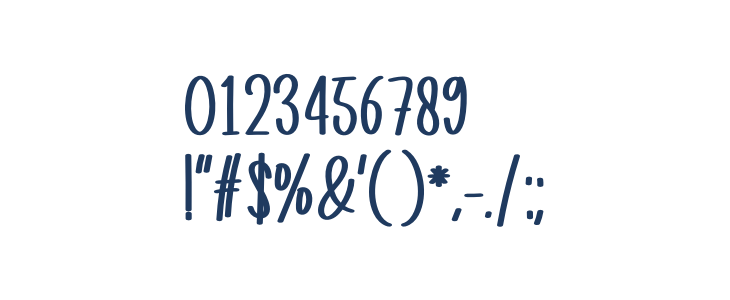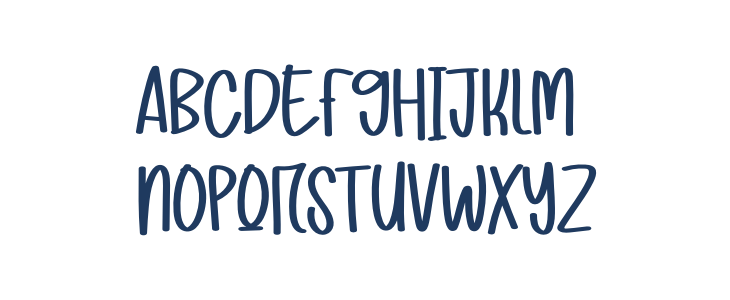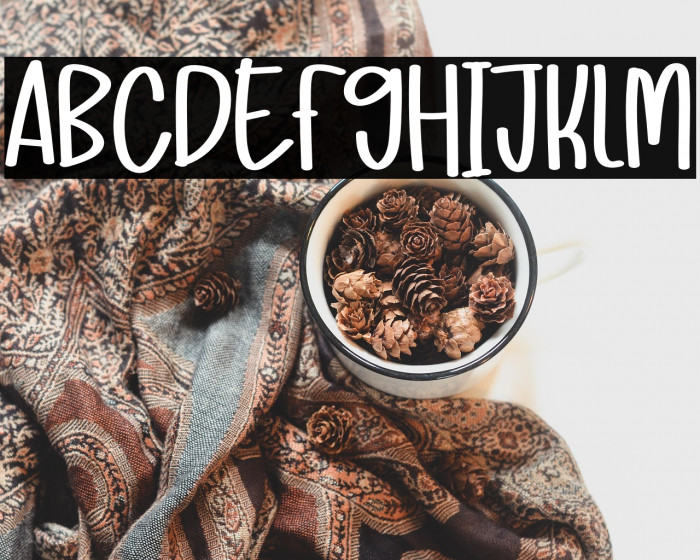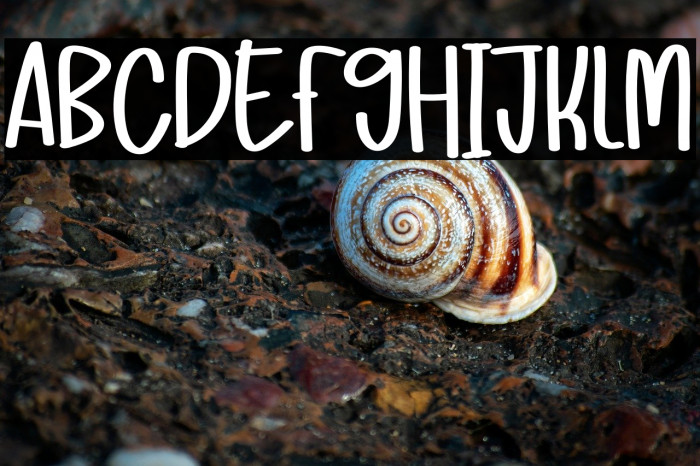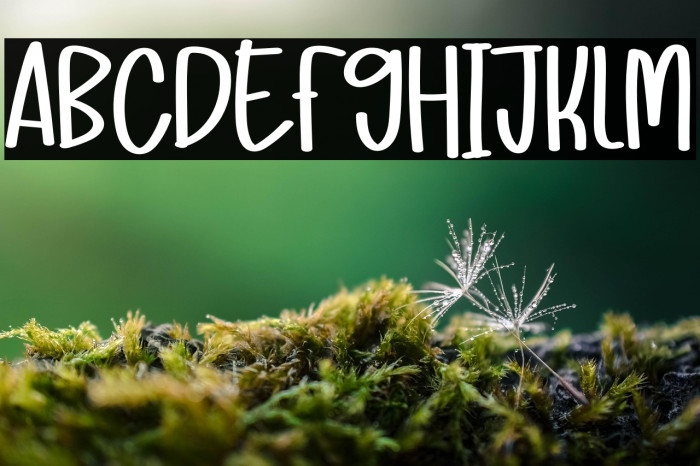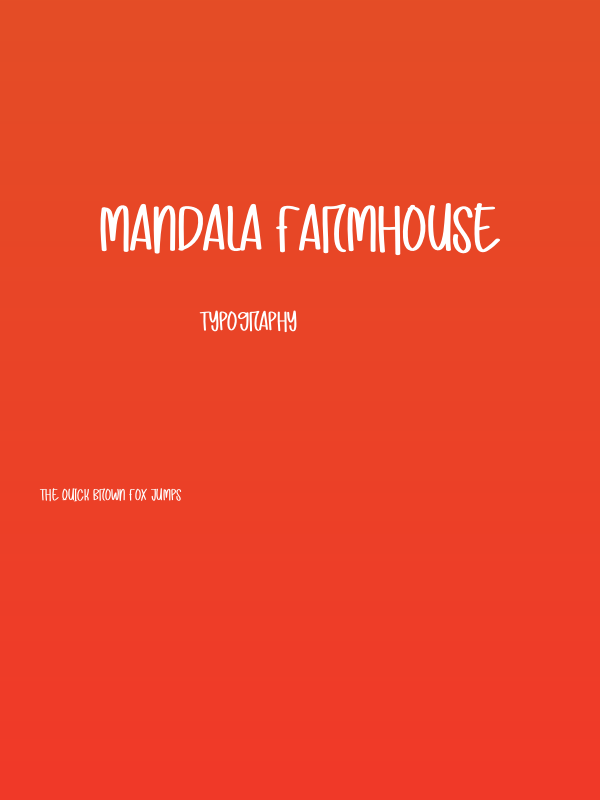
Mandala Farmhouse Font
Mandala Farmhouse Description
A playful, handwritten sans-serif font with tall, narrow letters and rounded edges, featuring consistent stroke width and a casual, friendly appearance.
| Overall Style | Playful, Casual, Modern |
| Use Case | Headlines, Logos, Decorative text |
| Proposed Projects | Greeting cards, posters, invitations, social media graphics, children's books. |